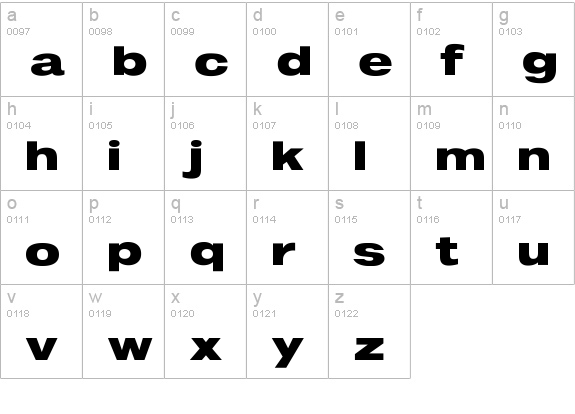
Quinta Font Details
Introducing Quinta Font, a stunning and versatile typeface that combines elegance with modernity. Designed with meticulous attention to detail, Quinta is the perfect choice for any creative project, whether it be branding, editorial design, or web development. Featuring clean lines and a balanced letterform, Quinta exudes a sense of sophistication and professionalism. Its timeless aesthetic makes it suitable for a wide range of applications, from logos and headlines to body text and signage. But what truly sets Quinta apart is its accessibility. This exceptional font is not only visually appealing but also freely available for download. Yes, you heard that right – Quinta Font can be yours without any cost. Simply head over to FontsMarket.com, and you'll have access to this remarkable typeface in just a few clicks. With its extensive character set, including uppercase and lowercase letters, numerals, punctuation, and various special characters, Quinta offers endless possibilities for your design projects. Its versatility allows for seamless integration into different design styles and aesthetics, making it a must-have for any designer's toolkit. Whether you're a seasoned professional or a budding designer, Quinta Font will undoubtedly elevate your work to new heights. So don't miss out on this incredible opportunity to enhance your designs with the beauty and grace of Quinta. Download it now for free at FontsMarket.com and let your creativity soar.